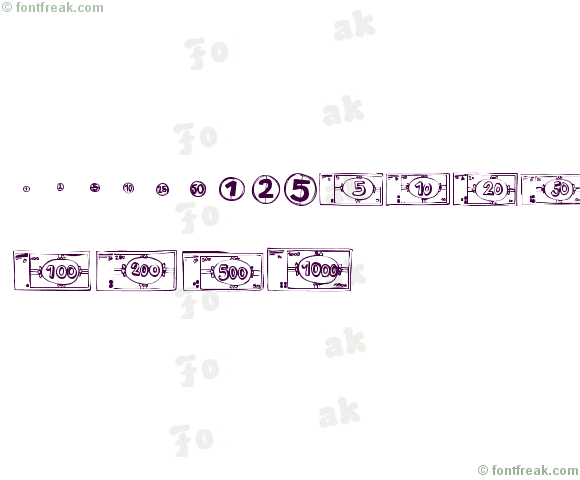
FE-Mo'Money
About FE-Mo'Money
FE-Mo'Money is a distinctive display font designed by Font Environment, embodying a playful and whimsical character that is perfect for creative projects. This freeware font features a unique handwritten style that captures the essence of custom lettering, making it an excellent choice for those looking to add a touch of personality to their designs. The font showcases a light to medium stroke weight with a slightly irregular baseline, enhancing its hand-drawn appearance. The spacing is well-balanced, allowing for legibility while maintaining an artistic flair. Decorative elements, such as dollar bills and playful symbols, infuse the typeface with a sense of fun and creativity.
Ideal use cases for the FE-Mo'Money font include wedding invitations where a light-hearted theme is desired, movie posters that require an eye-catching title treatment, restaurant menus aiming for a casual and inviting atmosphere, promotional materials for financial services that want to convey trust with a friendly touch, and even merchandise designs that cater to a youthful audience. The font is particularly well-suited for graphic designers, small business owners, and content creators who wish to make a memorable impression with their text.
What sets the FE-Mo'Money font apart is its ability to blend humor with professionalism, making it versatile for numerous applications. It stands out in a crowded marketplace of fonts by offering a unique aesthetic that communicates both creativity and approachability. Whether you're designing playful branding elements or crafting engaging social media posts, the FE-Mo'Money font free download provides a refreshing option that will elevate your projects and captivate your audience.